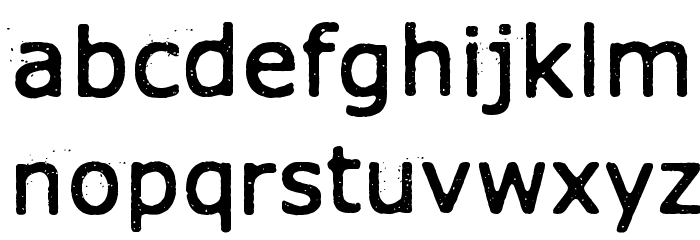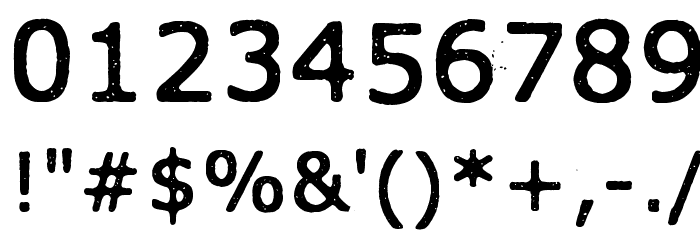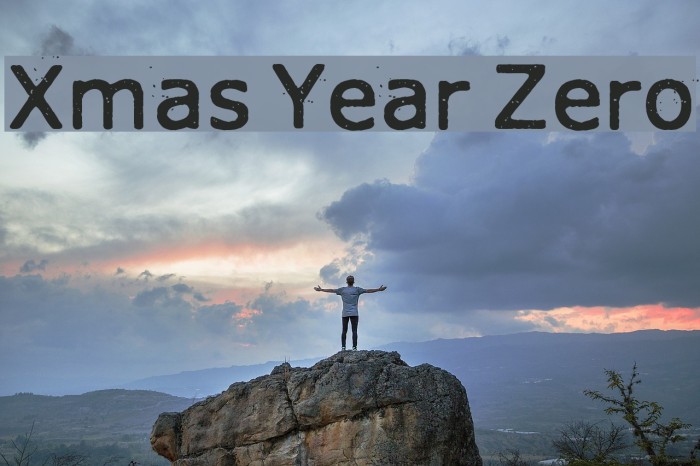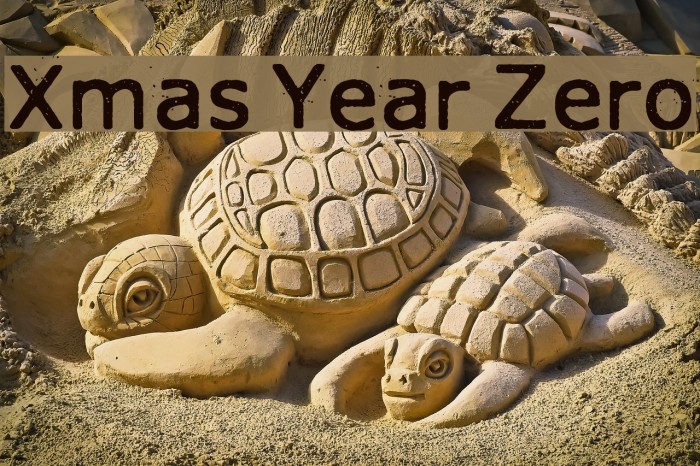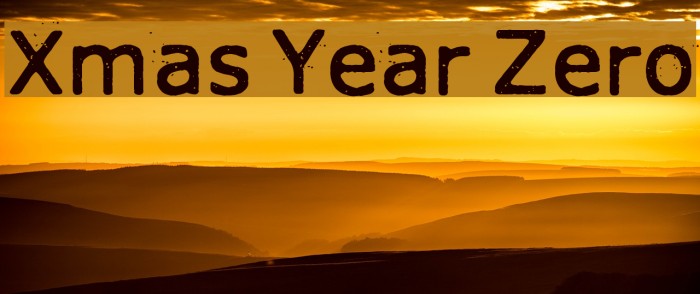
Xmas Year Zero Font
This font features a distressed, textured appearance that gives it a vintage and worn look. The characters are bold and rounded, with a uniform thickness that maintains readability despite the intentional imperfections. The uppercase and lowercase letters are well-proportioned, and the numerals are clear and distinct. The special characters complement the overall style, making it suitable for creative and artistic projects. The font's unique style is reminiscent of typewriter or stamped text, adding a nostalgic and handcrafted feel to any design.
A bold, textured font with a vintage, distressed appearance.
- Proposed Projects: Ideal for retro-themed designs, posters, branding, and packaging that require a vintage or handcrafted look.
- Overall Style: Vintage